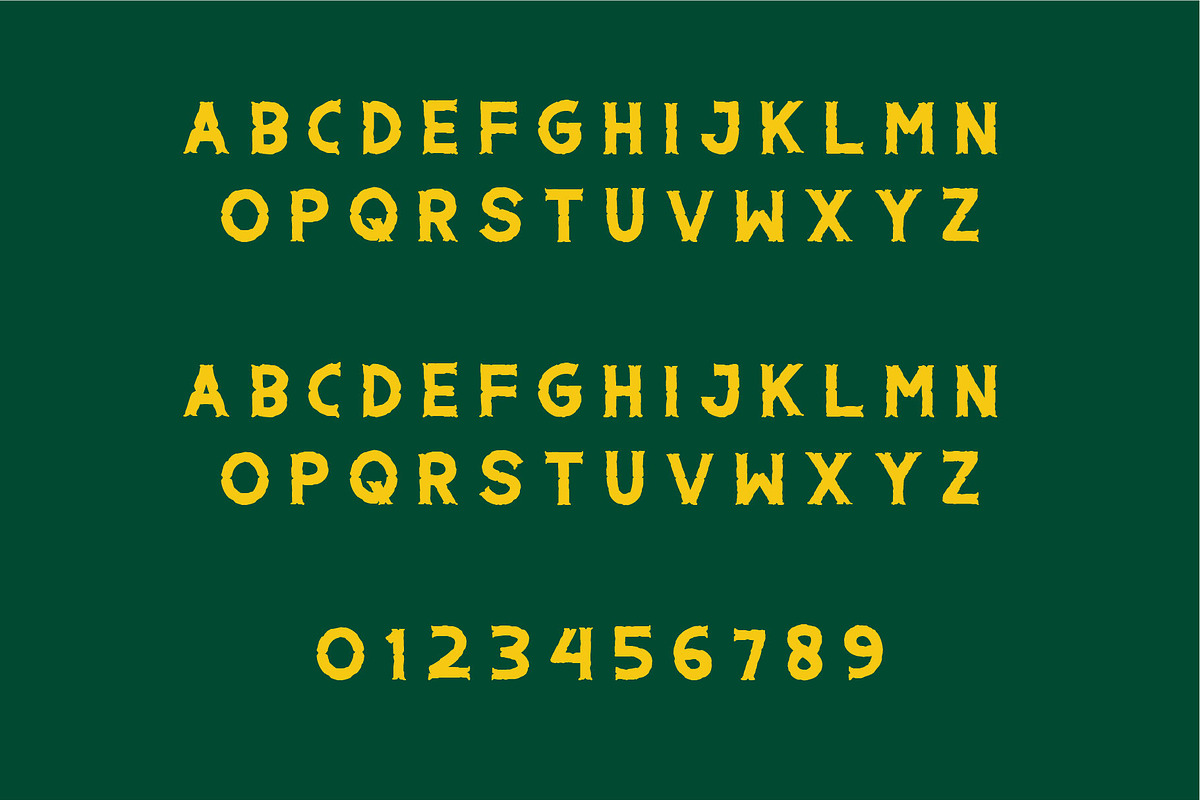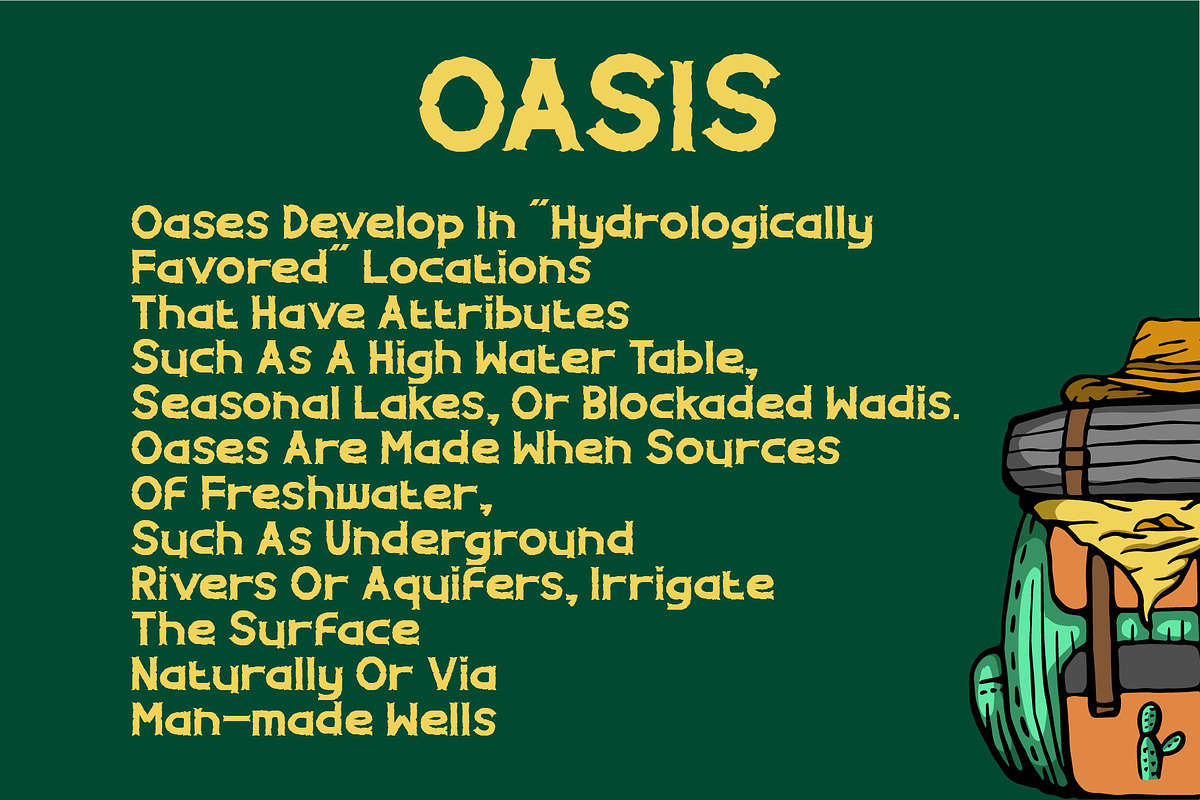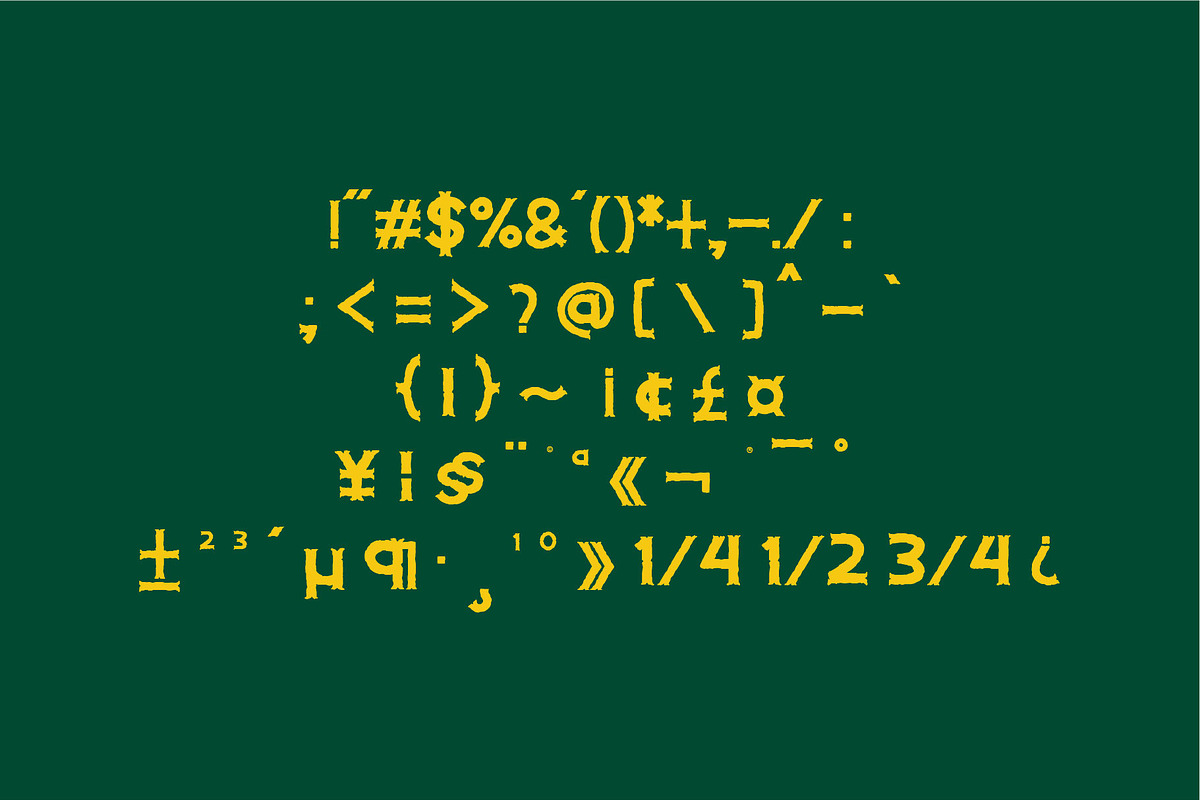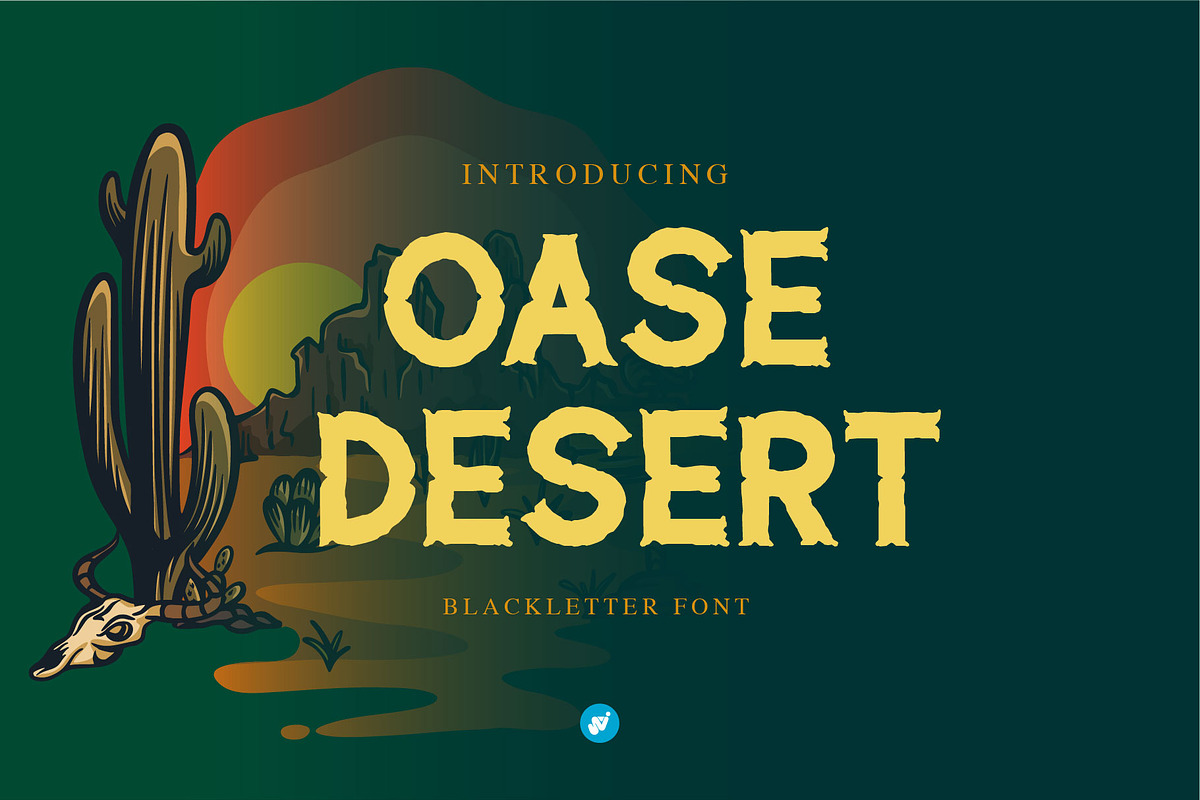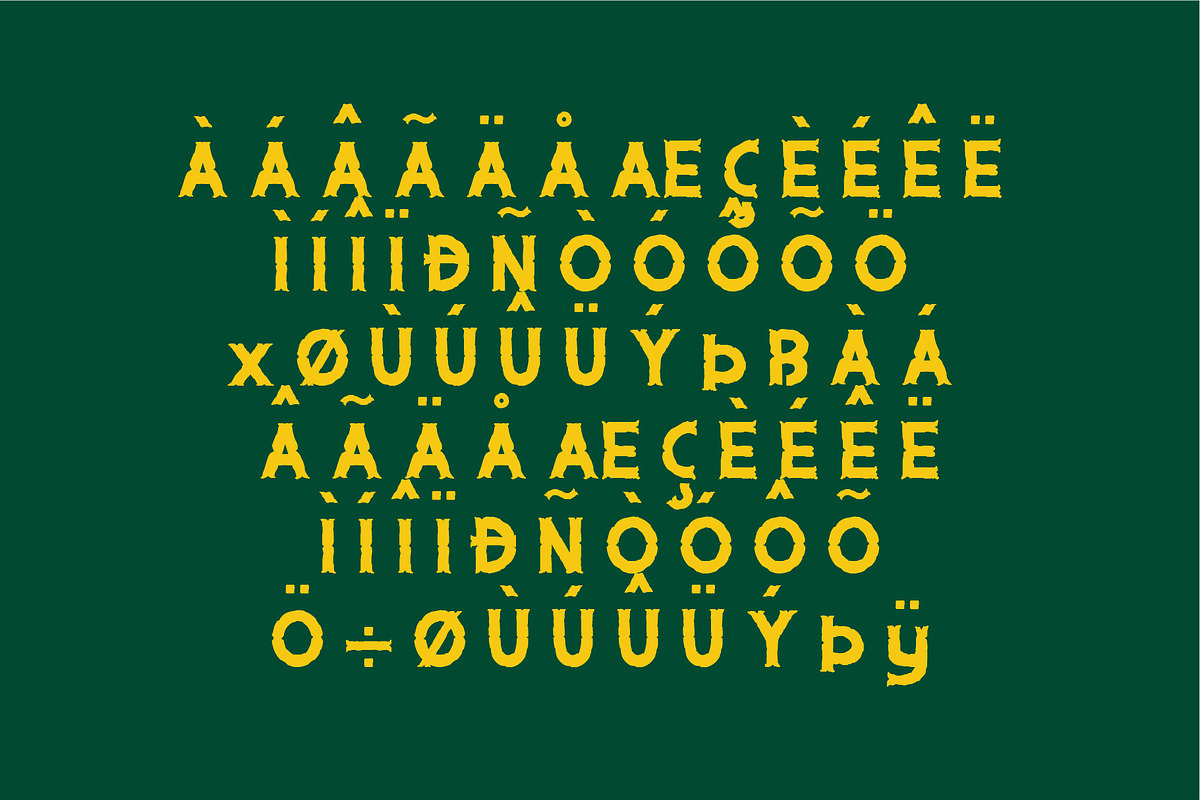
Oase Desert - Slab Serif Western
Oase Desert serif font suitable for old style themes.
- Uppercase, Lowercase
- Punctuation & Number,
- Multilingual Support ÀÁÂÃÄÅÆÇÈÉÊËÌÍÎÏÐÑÒÓÔÕÖØÙÚÛÜÝ